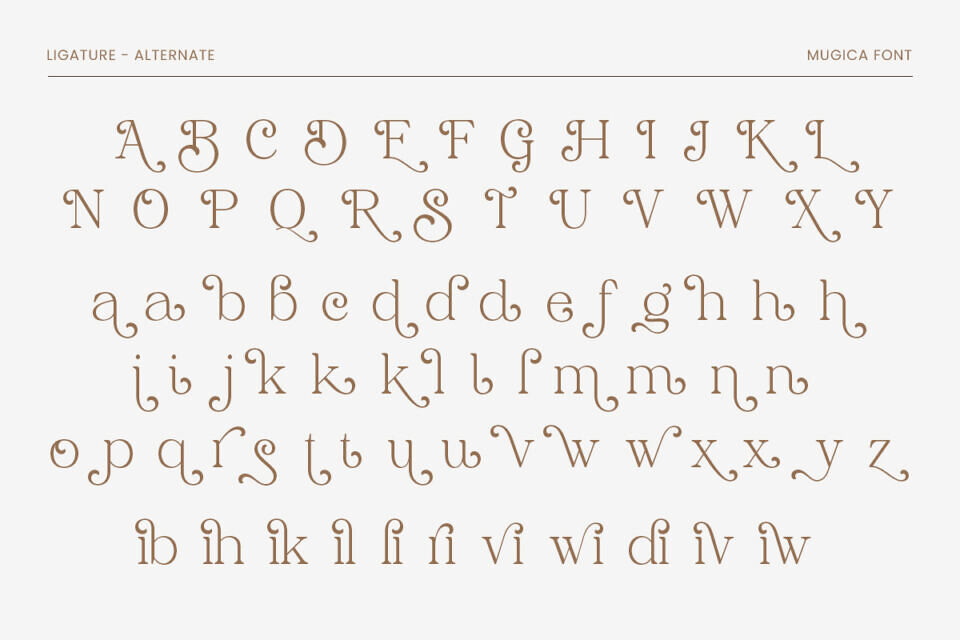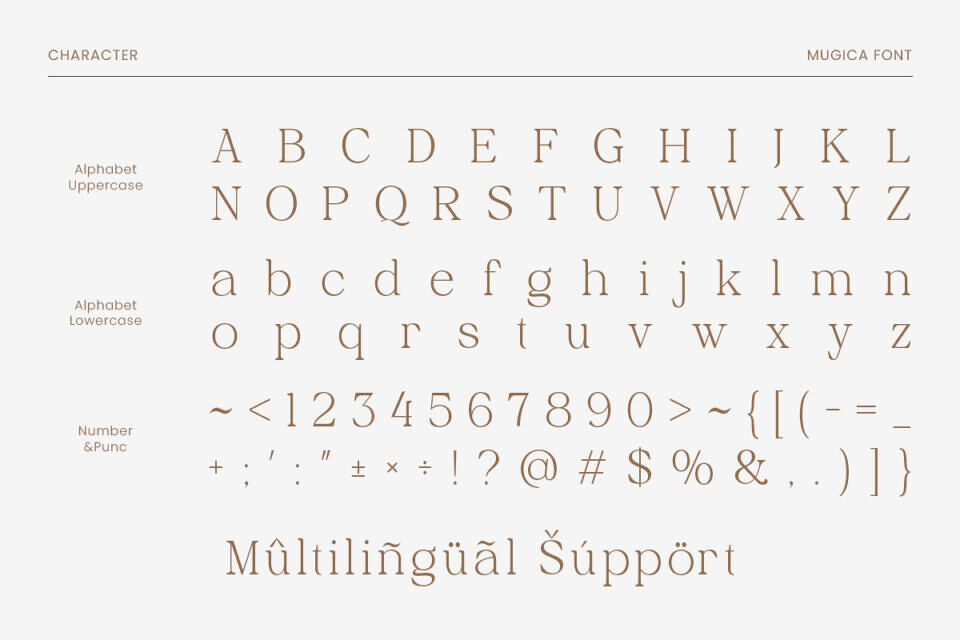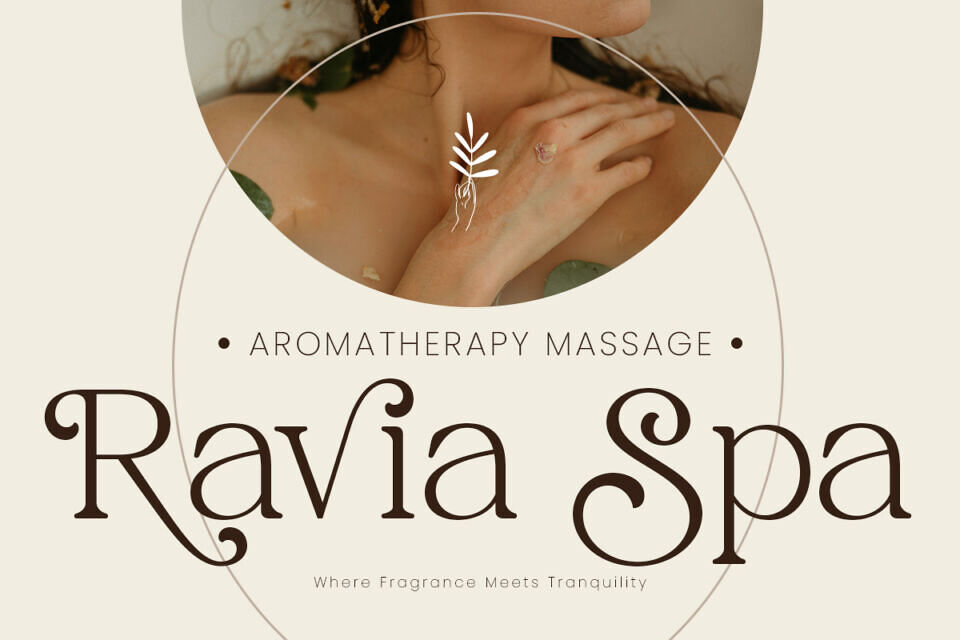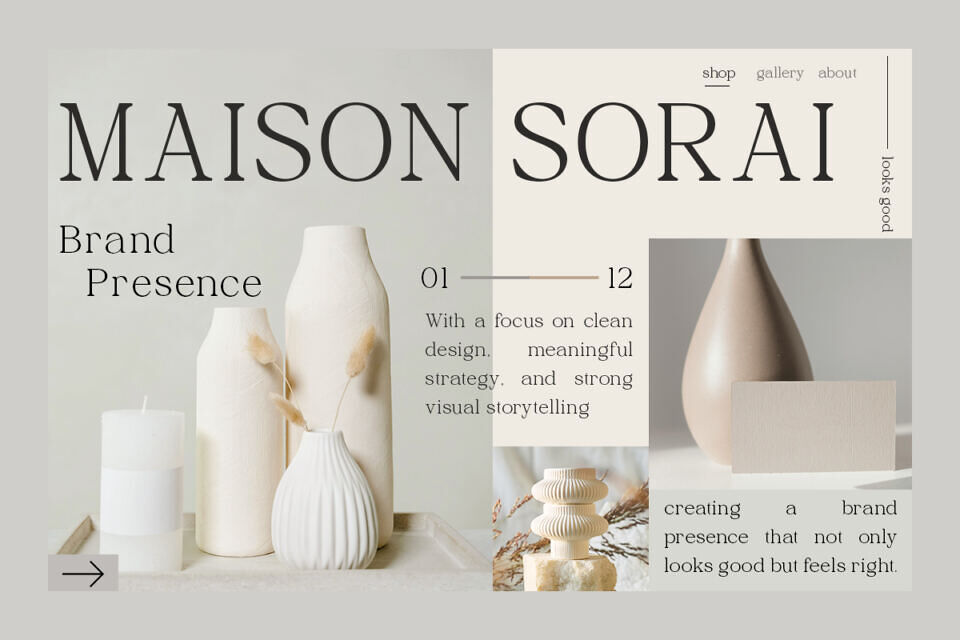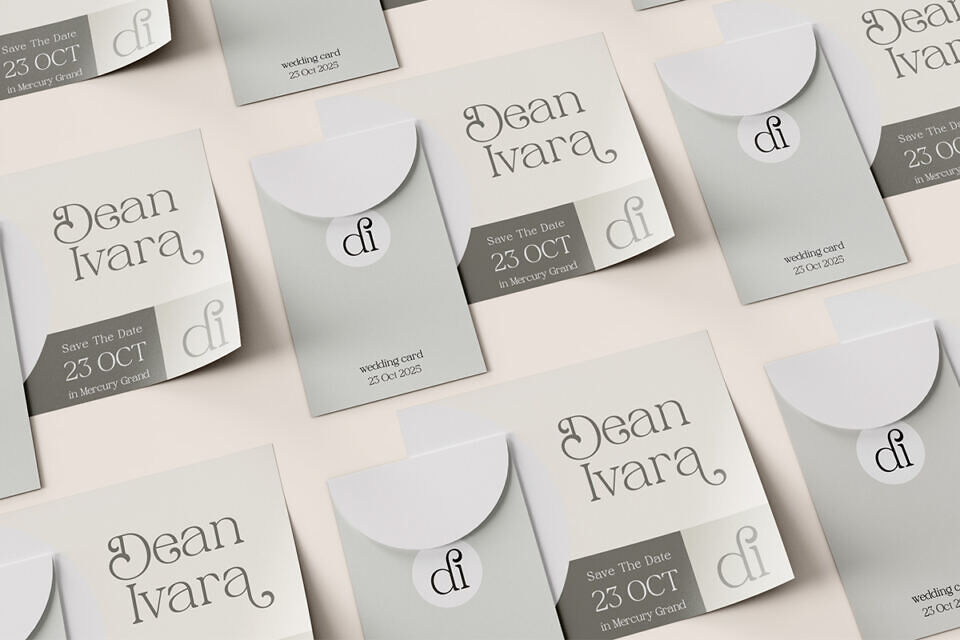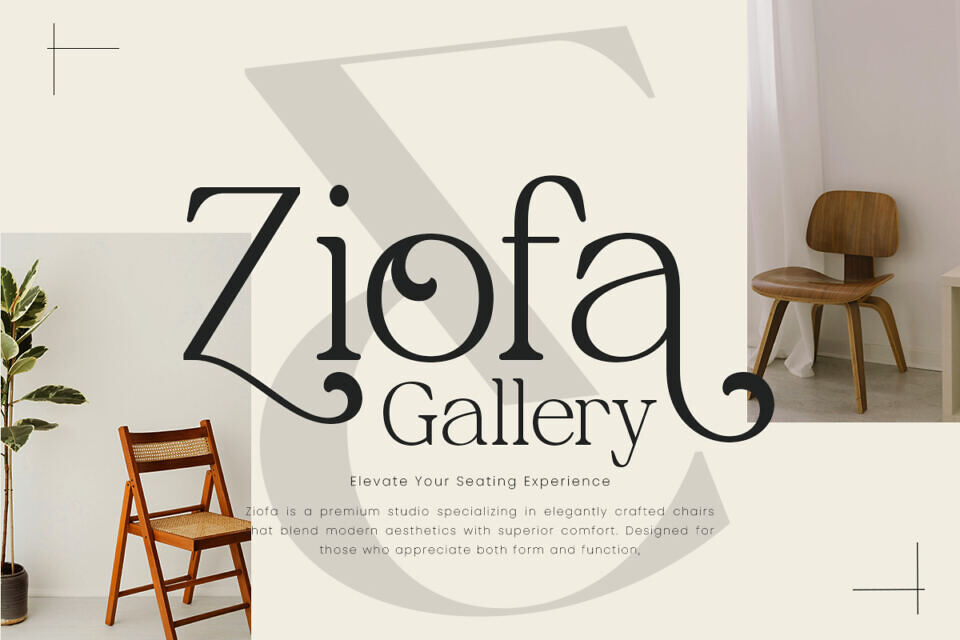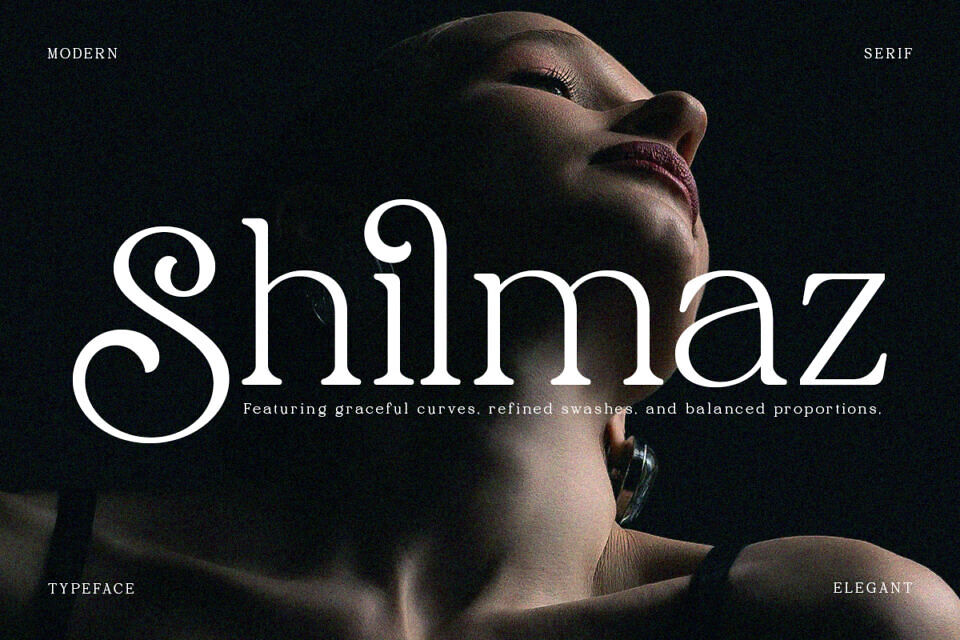
Shilmaz Font
Shilmaz a modern serif font that embodies elegance and timeless sophistication. With its graceful curves, refined swashes, and balanced proportions, Shilmaz is designed to bring a sense of luxury and class to any creative project. This font captures the harmony between modern minimalism and artistic detail, making it an essential choice for designers seeking refinement.
Perfect for luxury logos, fashion branding, wedding invitations, editorial layouts, and social media designs, Shilmaz elevates your visual identity with elegance. Whether you’re working on high-end packaging, chic marketing assets, or timeless brand visuals, this font ensures your work leaves a lasting impression.